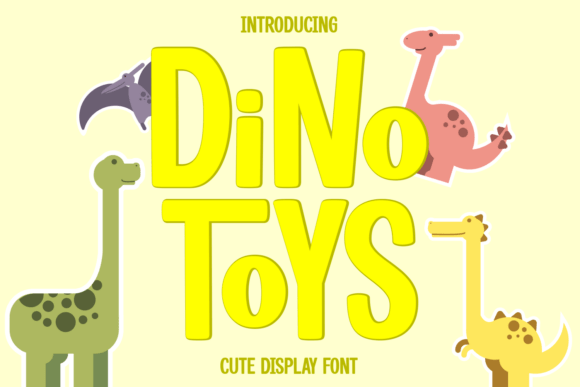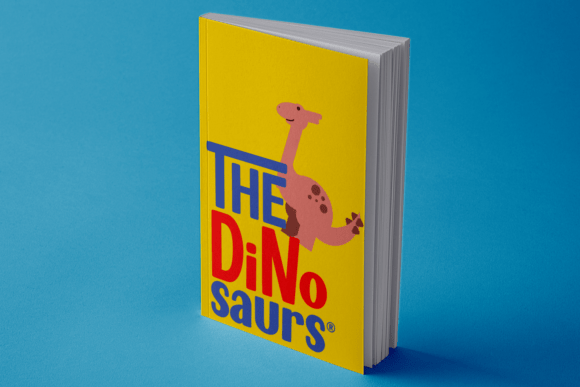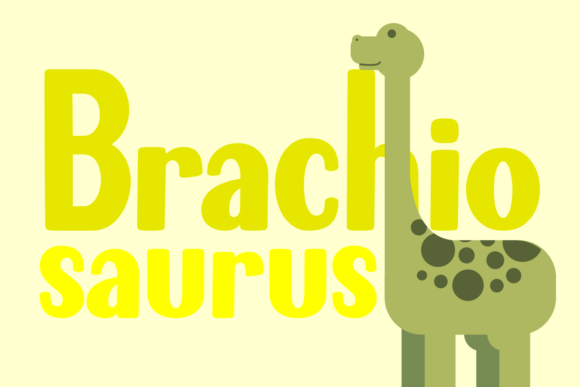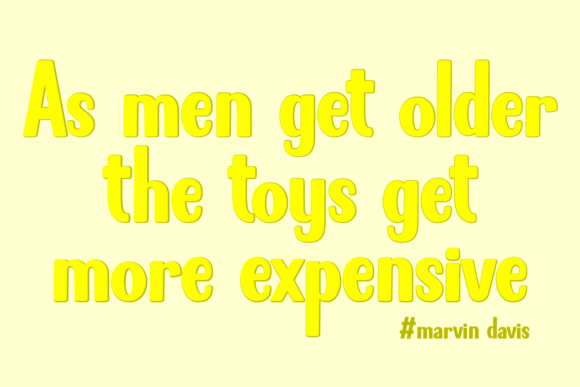
Dinotoys Font: A Playful Display Font for Cute Kids’ Designs
About the Dinotoys Font
Make a bold statement with Dinotoys Font, a powerful and memorable font. Dino Toys is a delightful and energetic display font designed with children in mind. With its tall, rounded letterforms and lively bounce, this typeface radiates playfulness and prehistoric charm. Paired perfectly with adorable cartoon dinosaurs, Dino Toys is ideal for toy packaging, educational materials, kids’ books, birthday invitations, and more.
Dino Toys excels in applications requiring high visual impact, such as logos for children’s brands, headlines on posters and flyers for kids’ events, and short text on packaging. Its playful nature makes it unsuitable for body text or large blocks of information; readability suffers at smaller sizes.
The font’s friendly and energetic personality pairs well with clean sans-serif fonts like Open Sans for supporting text or a more geometric sans-serif for a modern contrast. For a touch of elegance, consider pairing it with a simple serif like Lora. Avoid pairing it with overly ornate scripts or heavy, condensed typefaces.
Dino Toys projects a bold, friendly, and whimsical personality, ideal for brands targeting young audiences and projects focused on fun, creativity, and playfulness.
Dinotoys Font Usage Examples
Dinotoys Font Example